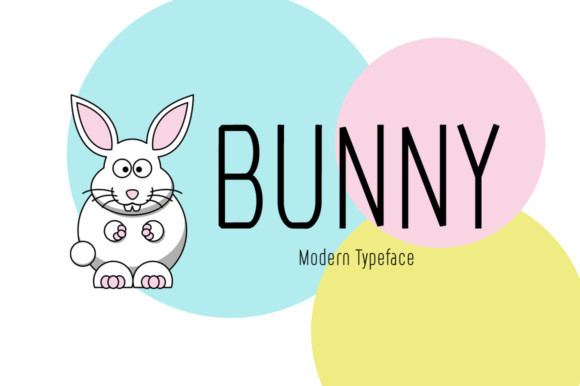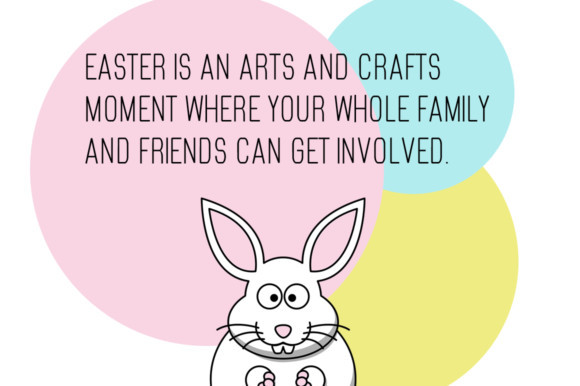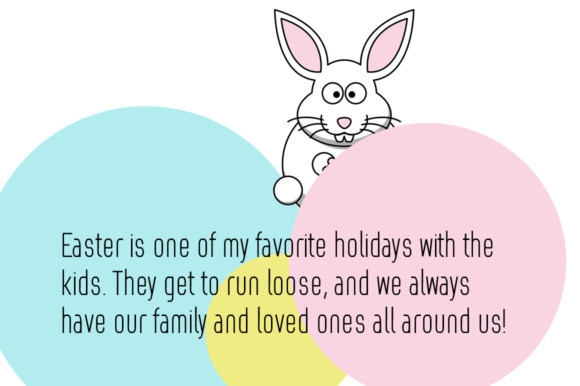
Bunny Font
Bunny is clean and modern, but also friendly. This versatile display font has a wide range of applications ranging from body text to headlines and is guaranteed to add a refined touch to your next design.